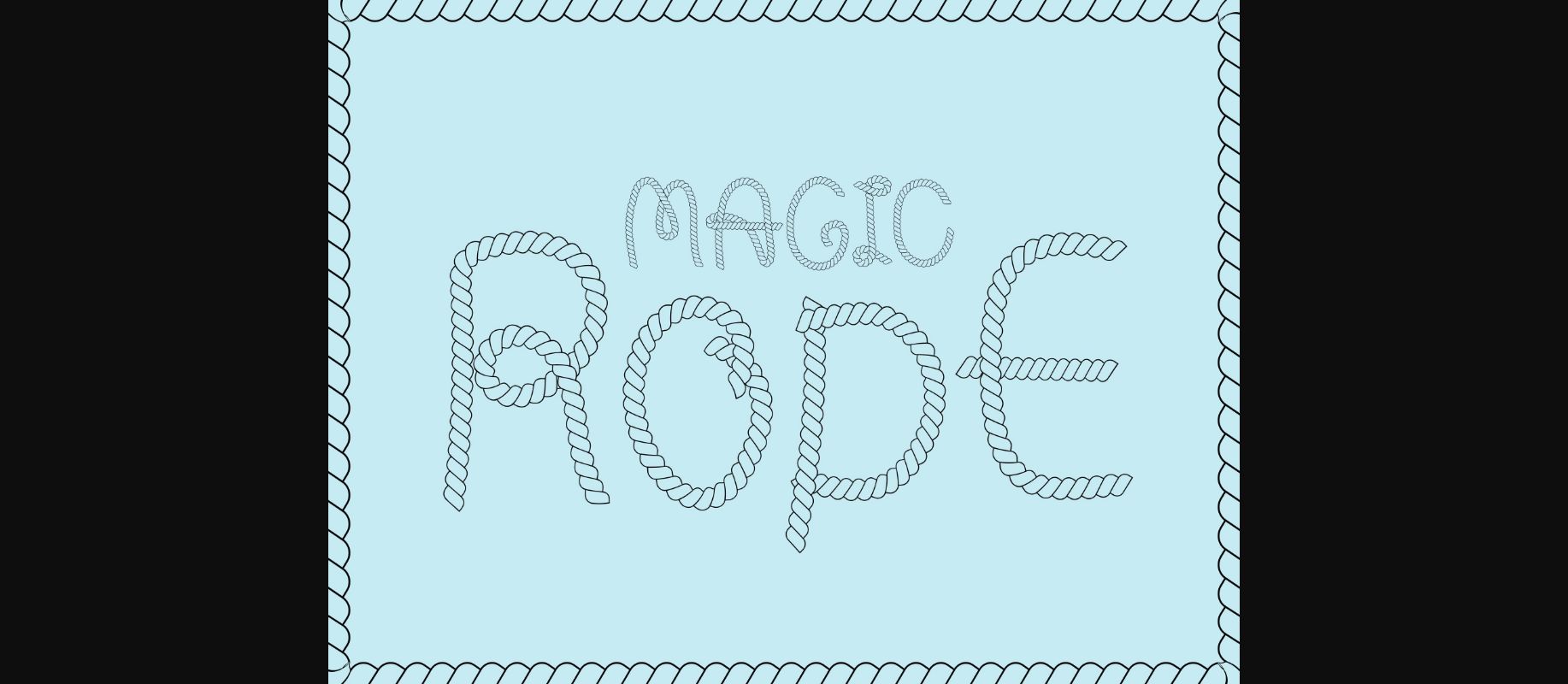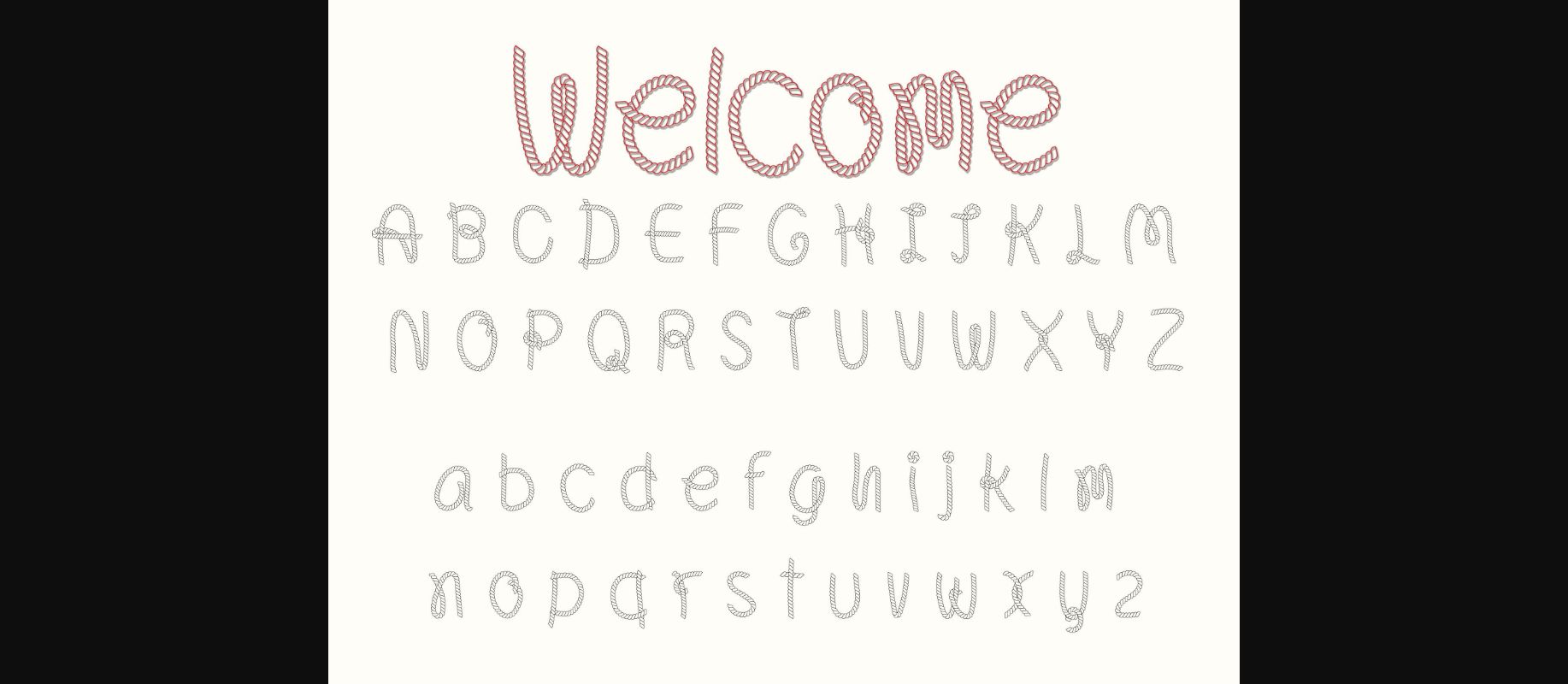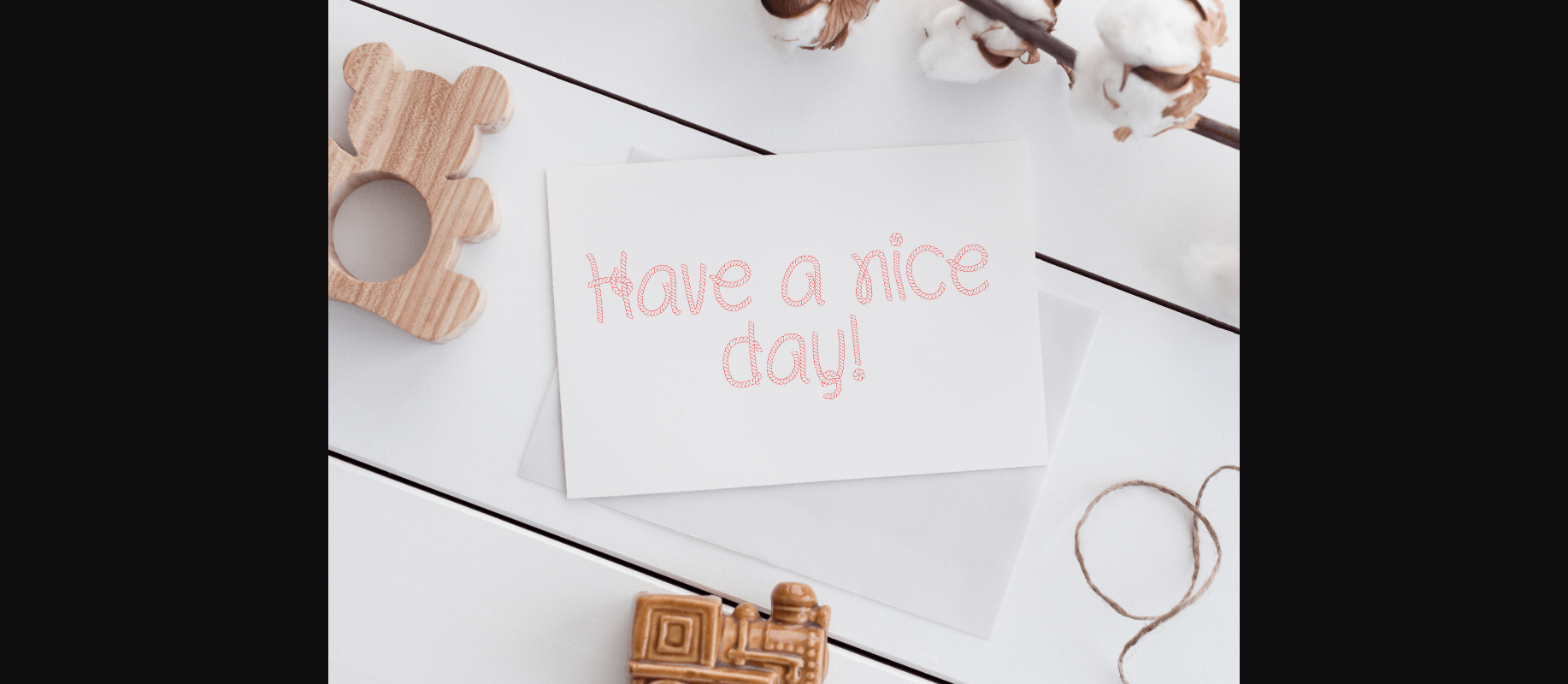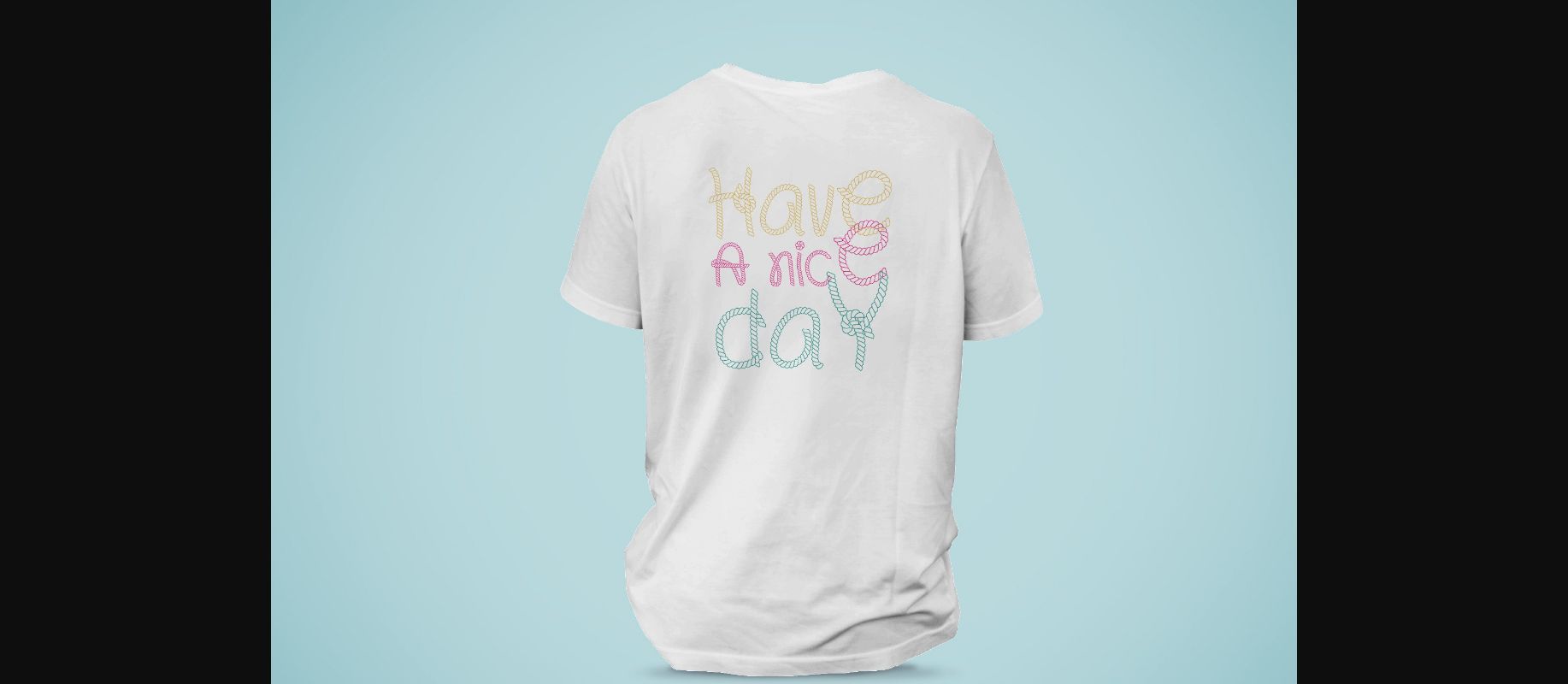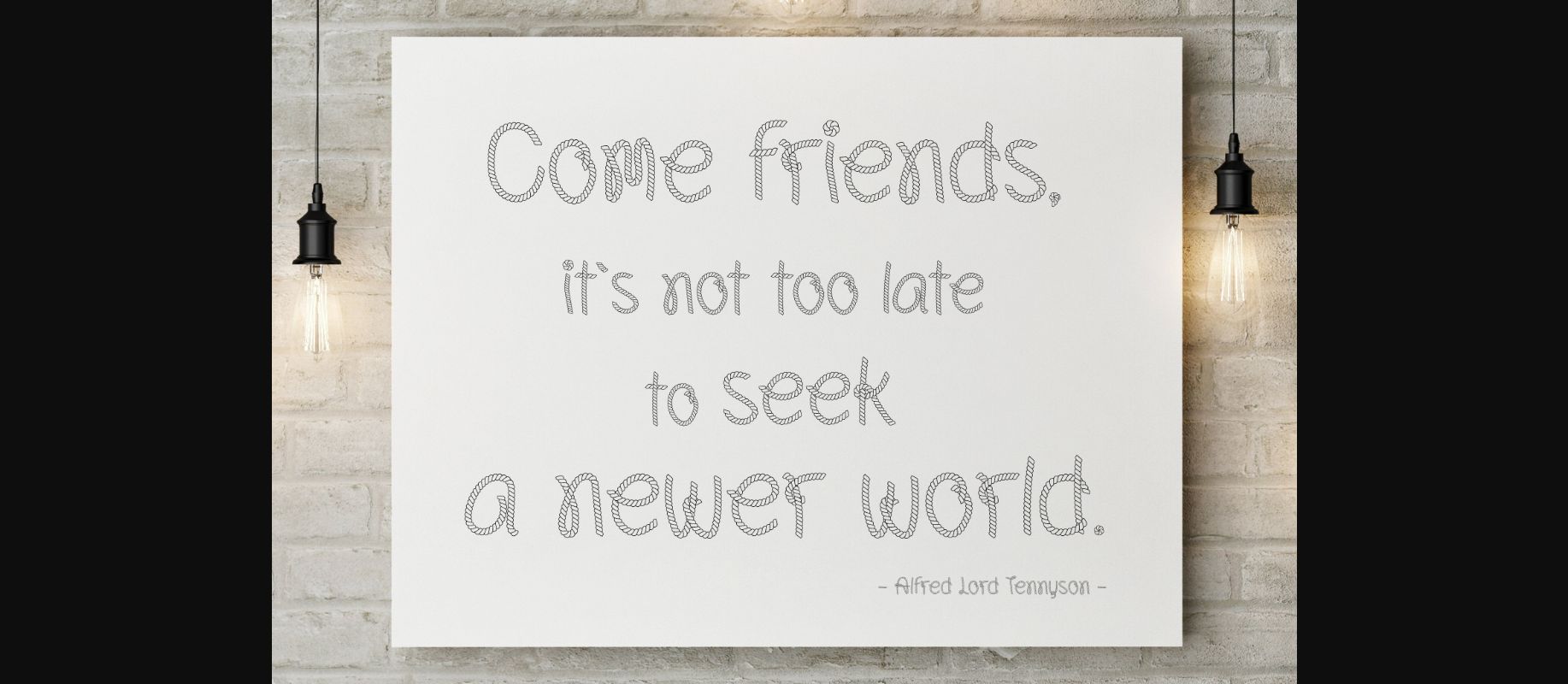
About Magic Rope Font
Magic Rope is a playful and modern decorative font that can be used for various design ideas. This font will be suitable for both formal and informal styles.